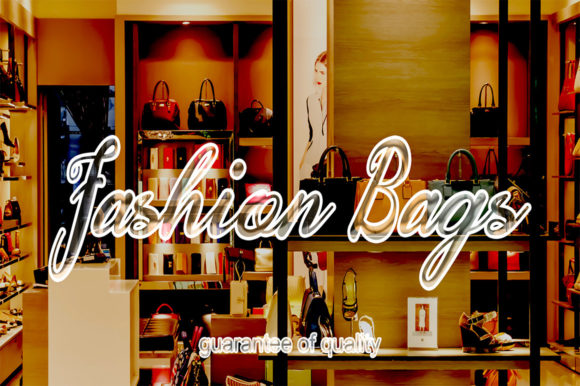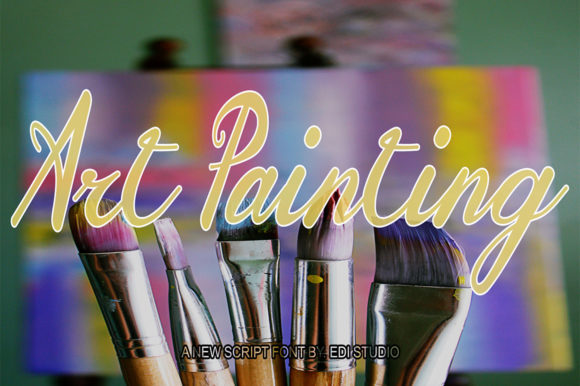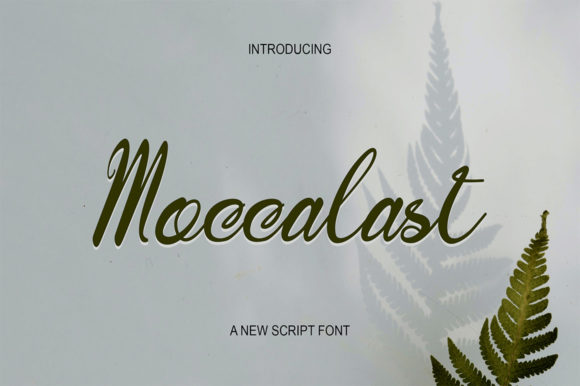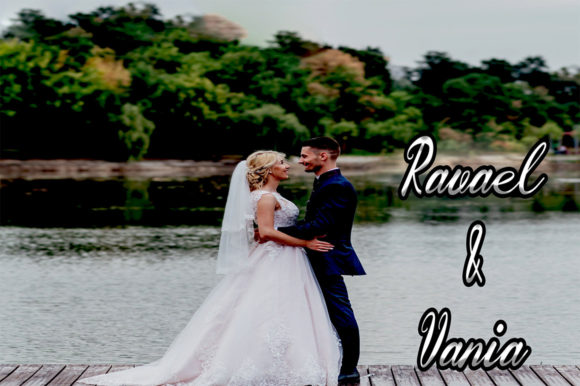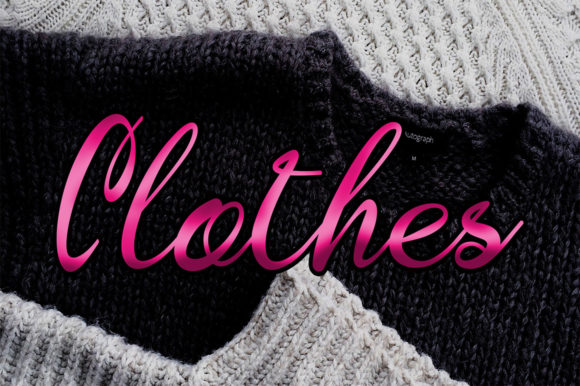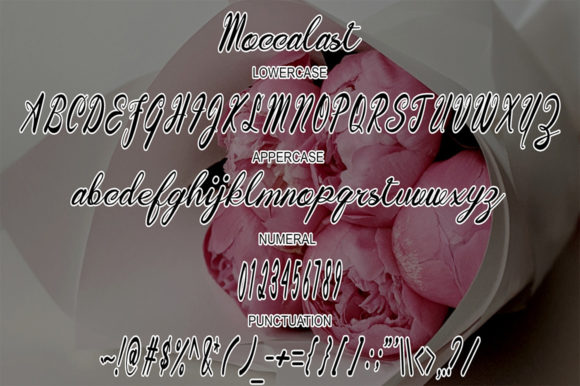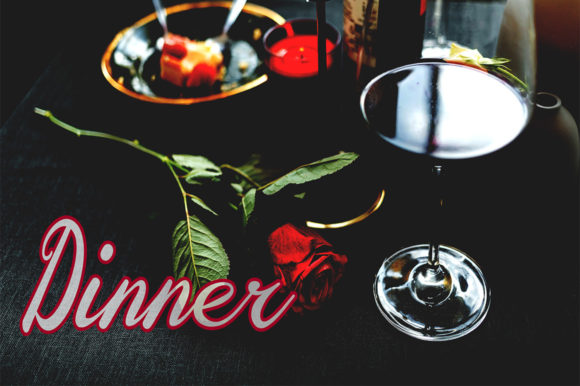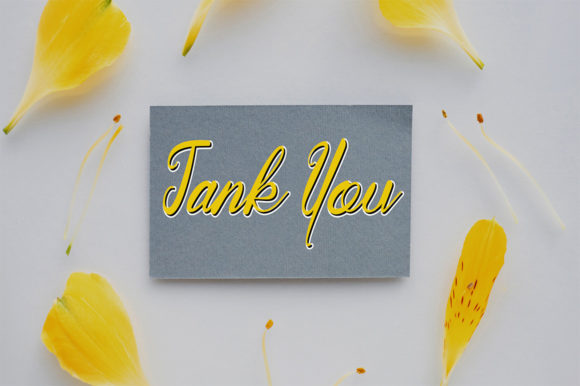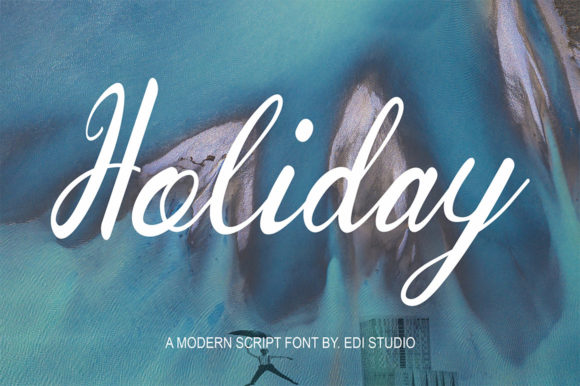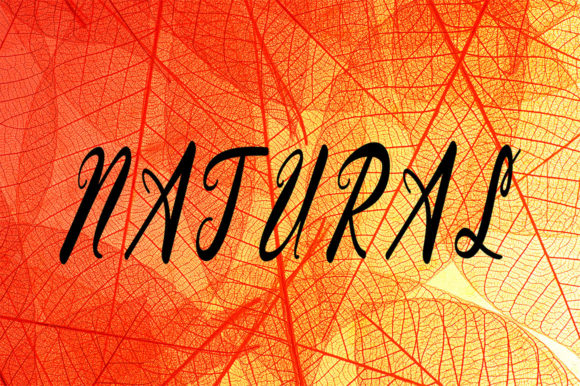
Moccalast Font
About Moccalast Font
Moccalast is a lovely script font featuring elegant characters that seem to dance along the baseline. Add this font to your most creative ideas, and notice how it makes them stand out!